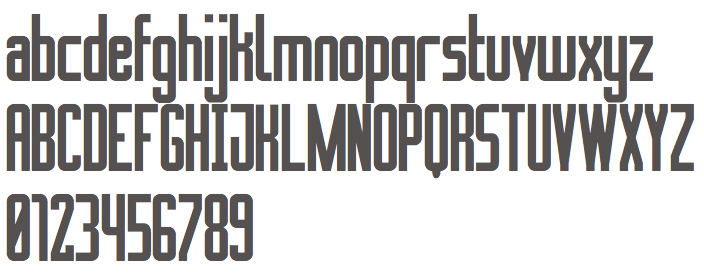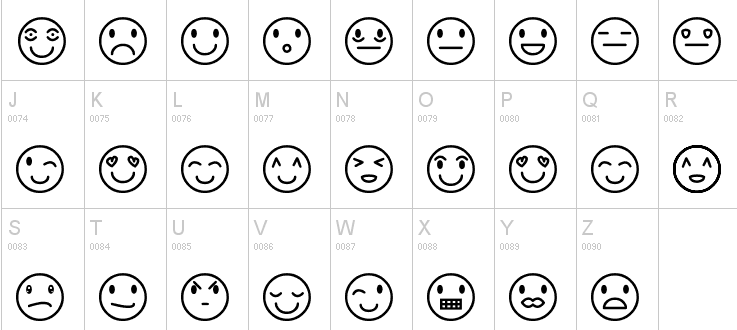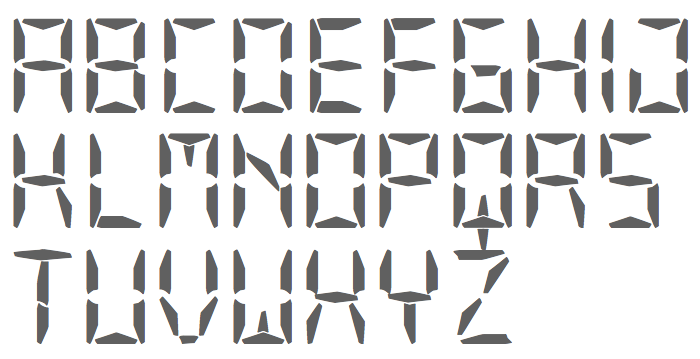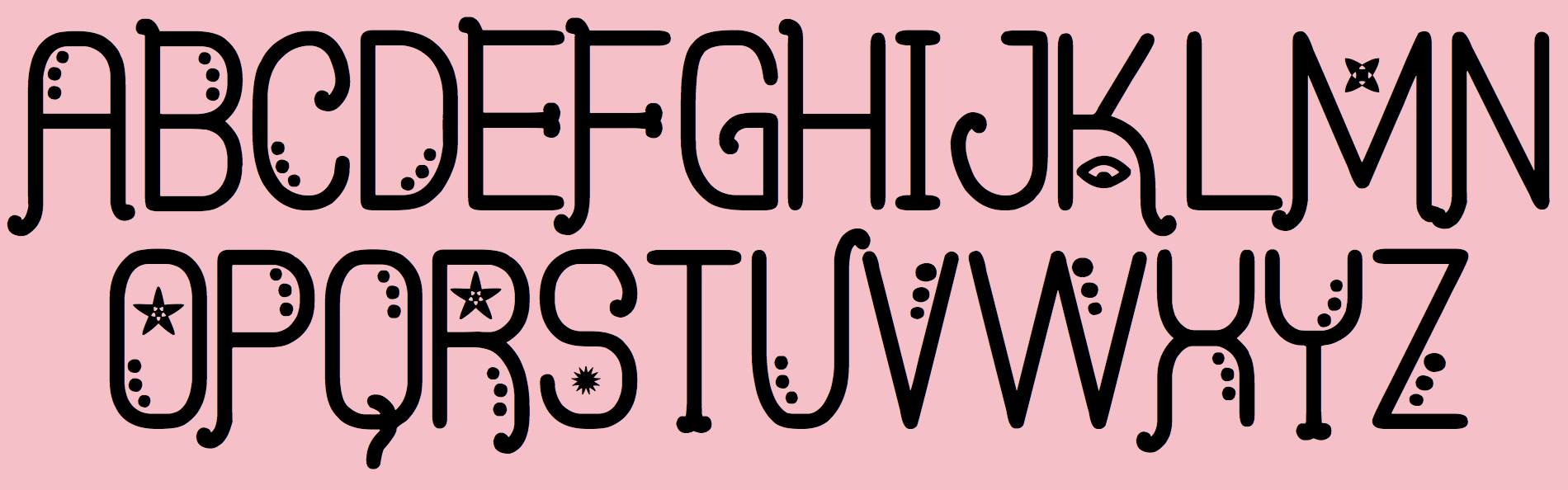
Southype [Rodrigo Gonzalez]
Chilean designer of the Easter dingbat fonts Easter Eggs ST (2014) and UnTaRot ST (2014). Other free typefaces from 2014 include Shapes St, Stupenda ST, Grafeno (connect-the-dots), Puente Estrecho (hairline), Tipo Capital, Cuadrada (dot matrix style), Apurado Royitto (arched typeface), Brillante, Novation Box, Rudasteria, Presidiario (horizontally striped typeface), Puente Nuevo, Rockmia ST (a glaz krak face), Boceto ST (outlined typeface), Puente Bueno ST, Open 24 Display ST (LED font), Iniciales ST, Floreada ST, Concadenado ST, Phantom ST, Santiago Sans ST, Es La Dura WN ST, Ledsitex ST, Imnova ST, Cinema ST, Cathedral ST, And Run ST (textured caps typeface), Older ST (textured face), Asrelurio ST, Hearts ST, Other Display ST (LED font), Salpicado ST, Adornada ST, Extragna Rara ST, Fichas ST, LED Simple ST (dot matrix font), Dominos ST, News Papers, Our Display ST (LED emulation), Lineal Simples ST, Cuadradex Simple ST (hexagonal face), Edournida ST (a textured typeface), Tripleled ST (dot matrix), Bicolors ST, Absolutamente Rou ST, Flowers ST, Leders (dot matrix), Old Computer ST, Rounded Display ST, Lediz (dot matrix face), Alien Faces ST, Westranga (textured), Rostros y Emociones (smilies), Filligrees and Ornaments ST, Demionatibu and Cube Face ST.
Typefaces from 2015: Shapes ST (kaleidoscopic ornaments), Questra Extra ST.
Typefaces from 2016: Viexa Barbuda, Justo St, Mala Vida St, Hypnossia St (textured), Boulding Work St (textured), Hand Faces St, Astronomic Signs St, Alien Bats St, Snowflakes St, The Misty South, Discotheque St (trilined), Qualentaro Wallmapu St (textured), New Russia 2108 St (Cyrillic emulation typeface), Comics of South, Puntiyisca (textured), Calendulia (textured), The LED Display dot matrix style), My Older Life St, Xmasbats St, Merry Xmas St (alphadings), The Guns Smoke St, Cubox 3D St, Mr Techly St, Coming Soon St (movie font), Old Burlesque St, The Neckbreaker St, Big Daddy St, Chinese Wok Food St (oriental simulation type), Extra Gro St (3d, outlined), Halloween Scare St, Humongous of Eternity St, La Que Cuelga St, Litle Simple St, Metalo Of South St, Mostera St, My Valentine Now St, Panda Power St, Pumpkin Halloween St (pumpkin alphadings), Shadded of South, Sheriff of South St, The Flaggy St, Big Daddy St, Digital Play Hollow St, Digital Play Italic St (LED font), Digital Play St (LED font), Happy Balloon St (alphadings), Humongous of Eternity St, Notarized Openly Script Oblique, Notarized Openly Script St (comic book style), Panda Power St, Sheriff of South St, Antique Quest St, Blockys St (3d blocks), Comely St, Data Cards St, Don Moise St, Jackdaws Love St, Maxter Board St (dot matrix), Moderna Disco St, Pointed Laid St (dot matrix), Recoleta Sans St, SS Barracuda St (a great grungy style), Score Board St (dot matrix), Second Flowers St, The Drunked Man St, The Flowers St, The Inbox St, The Outbox St, Thempo New St, And Love st, Another Faces St, DhonJako St, DoubLe CoLor St, EasterFont St, Granite Rock St, Monster oF South Hollow St, Monster oF South St Italic, Monster oF South St, Satanyc Demoniac St, Tenebrous St, The South Flag St, UltraLED St, Halloween Party St, The Display St (LED font), Good Idea St (alphadings), Mi Nuevo Display St (dot matric), Otra Mas Stf, Fantasmytas St (alphadings), Urban Tribal STF, Foontastica St, Del Recuerdo St, Cuadritos St, I Love St (Valentine's Day alphadings), Eskimporce VSF (textured).
Typefaces from 2017: The Quick Frog St, Shadded South St (shadow font), Consequad St, Warmerous St, The Bad Times St, The Jack Brown St (multilined), Alphin Merytous St, News Board St, Eat at Joe's St (marquee font), Any Meritous St, The Quick South St, Kasquiwane St, Jux Kadabra St, Flowered, It's Scary Now, Cooler South, Icons South, Glass & Bottles (dingbats), Squarex (octagonal).
Typefaces from 2018: Scarythin St, New Led Display St, My Display St (LED font), Petroleum St (grunge), Blade Gunner 2049 St.
Typefaces from 2019: Zodiac.